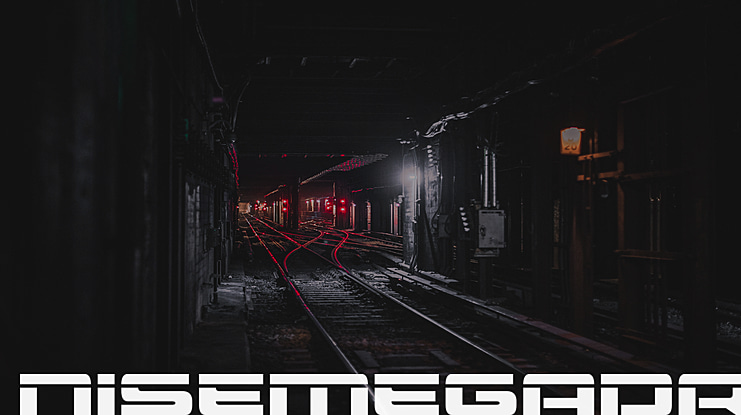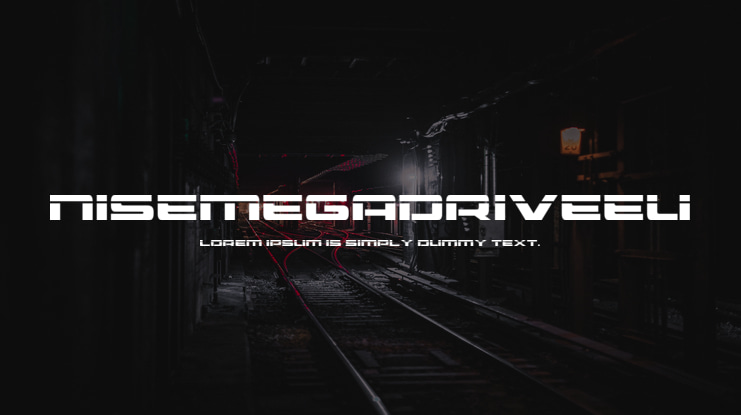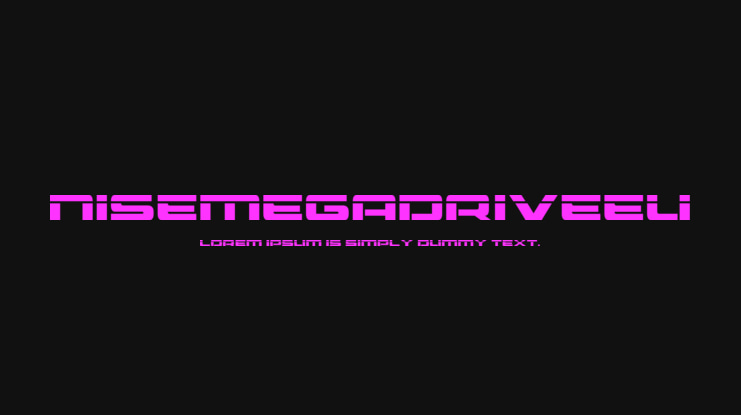
NiseMegaDriveEU Font
PLEASE NOTE: THIS IS AN UPPERCASE-ONLY FONT. ANYTHING LOWERCASE (PLUS A FEW OTHER CHARACTERS) WILL SHOW UP EMPTY. i was working on a klasky csupo 1998 logo remake and realized that the second "K" doesn't have its own font, so i decided to make one for it. i understand it's been a long while since i've made new fonts. don't except them to be a common thing here. [©2020 (MMXX) THXFan2889]